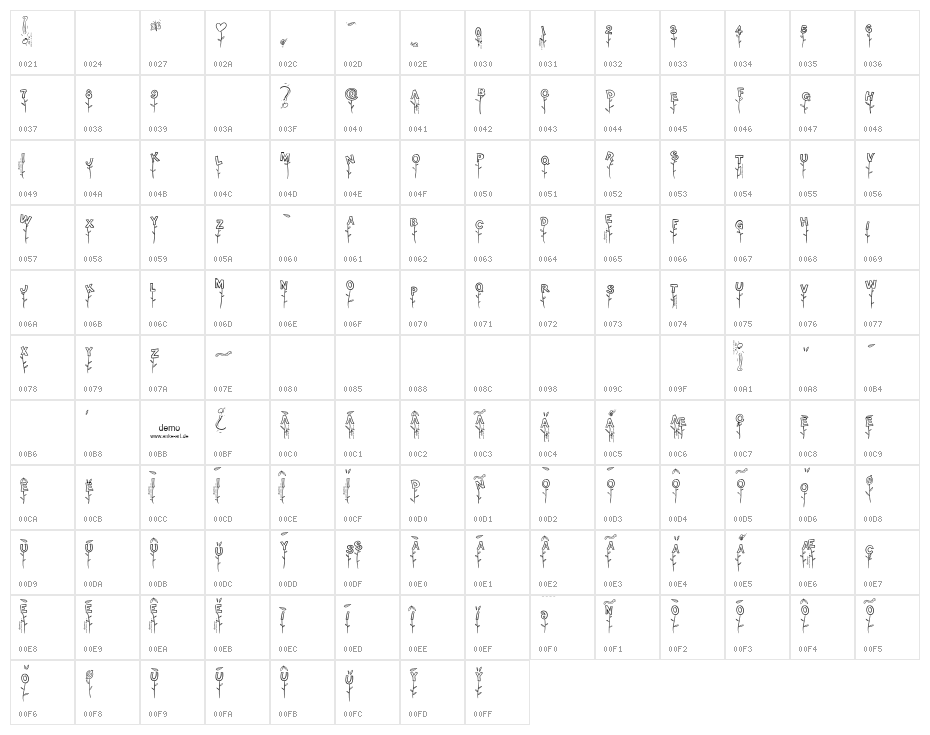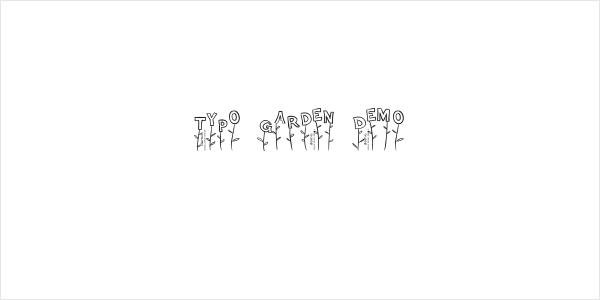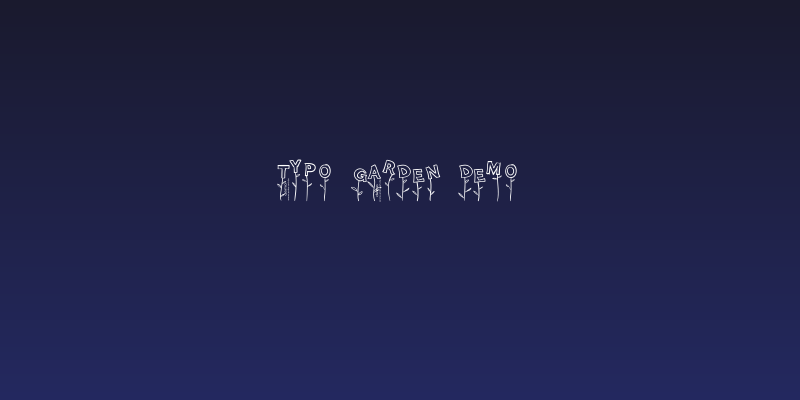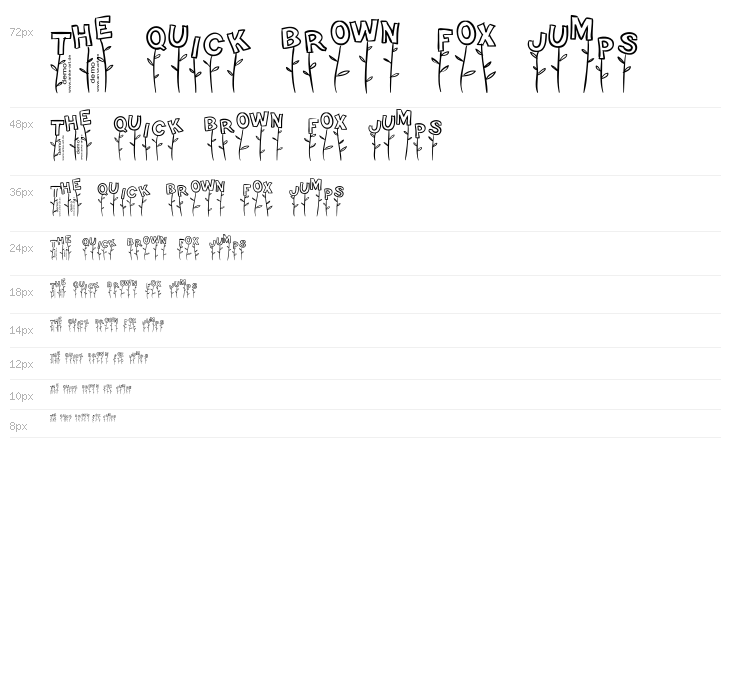
Typo Garden Demo Font
Typo Garden Demo Description
This whimsical and playful font features letters that appear to grow from stems, resembling a garden of typography. Each character is uniquely designed with a hand-drawn aesthetic, giving it a charming and organic feel. The uppercase and lowercase letters are consistent in style, with a slight tilt that adds to the playful nature. The numbers and special characters maintain the same garden theme, making the font cohesive and visually appealing. The overall design is decorative, perfect for projects that require a touch of nature or a fun, lighthearted vibe.
| Proposed Projects | Ideal for children's books, greeting cards, garden-themed events, or playful branding projects. |